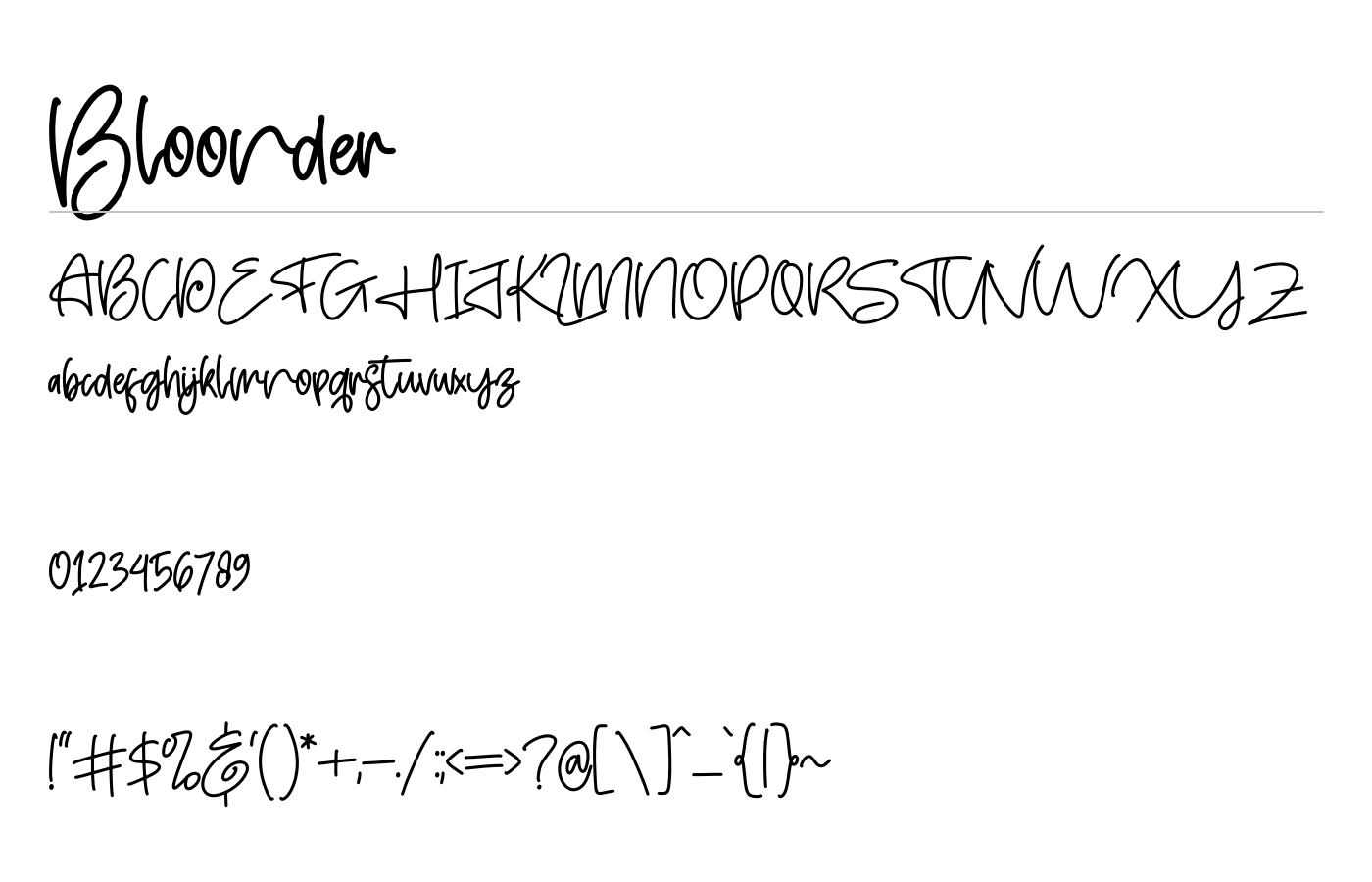
Bloonder is a casual, handwritten script font that mimics natural, playful pen strokes with a lively and informal feel. Its tall, slightly condensed letterforms with varied stroke widths give it a dynamic and personal touch, making it ideal for creative projects, branding, and expressive headlines that seek a friendly and approachable vibe. This font works well where a genuine handwritten look is desired, adding warmth and personality to invitations, logos, or artistic designs.
Bloonder Font
About Bloonder Font
| Font family | Bloonder Font |
| Designer | Nanang Jamaludin |